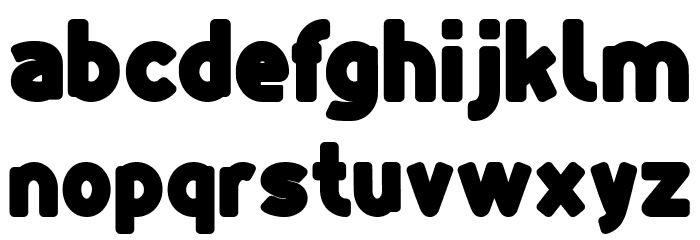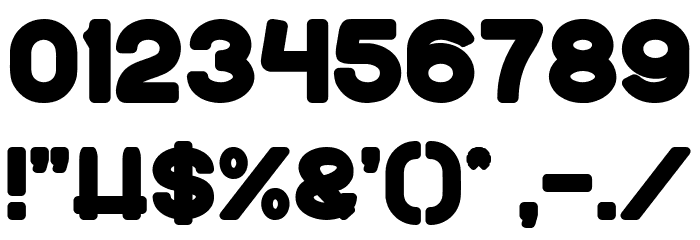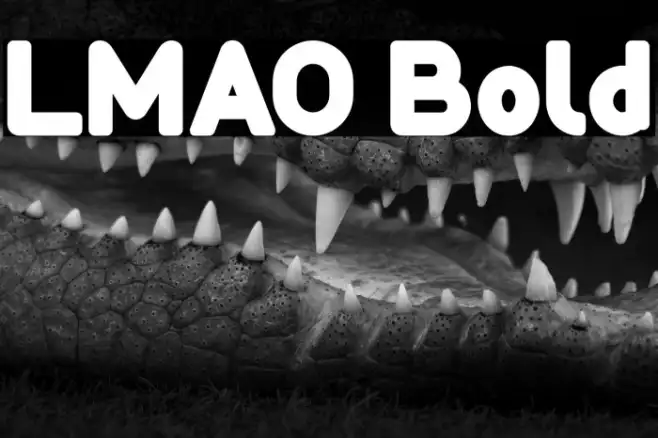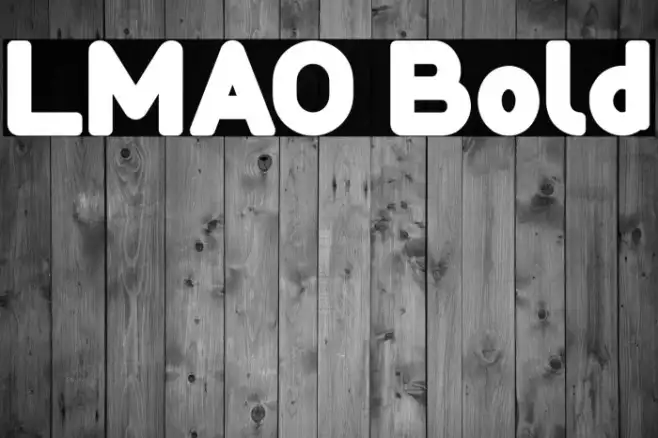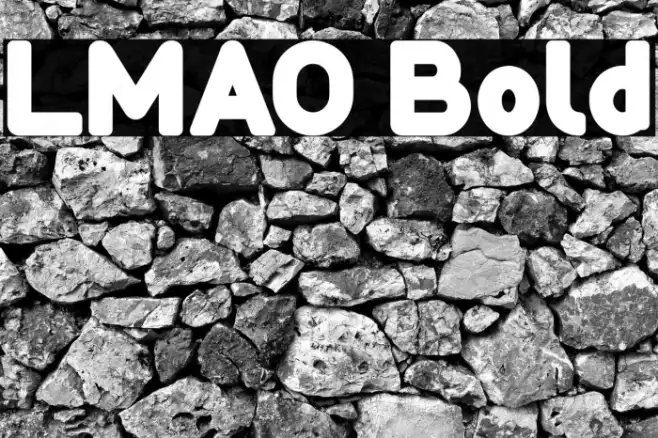
LMAO Bold Font
This bold, rounded font features a playful and modern aesthetic with thick strokes and smooth curves. The characters are uniformly bold, providing a strong visual impact. The uppercase and lowercase letters maintain a consistent style, with rounded edges that contribute to a friendly and approachable look. The numerals and special characters follow the same design principles, ensuring a cohesive appearance across all glyphs. The font's boldness and rounded shapes make it suitable for projects that require a fun and engaging tone.
A bold, rounded font with a playful and modern aesthetic.
- Proposed Projects: Ideal for children's books, playful branding, posters, and social media graphics.